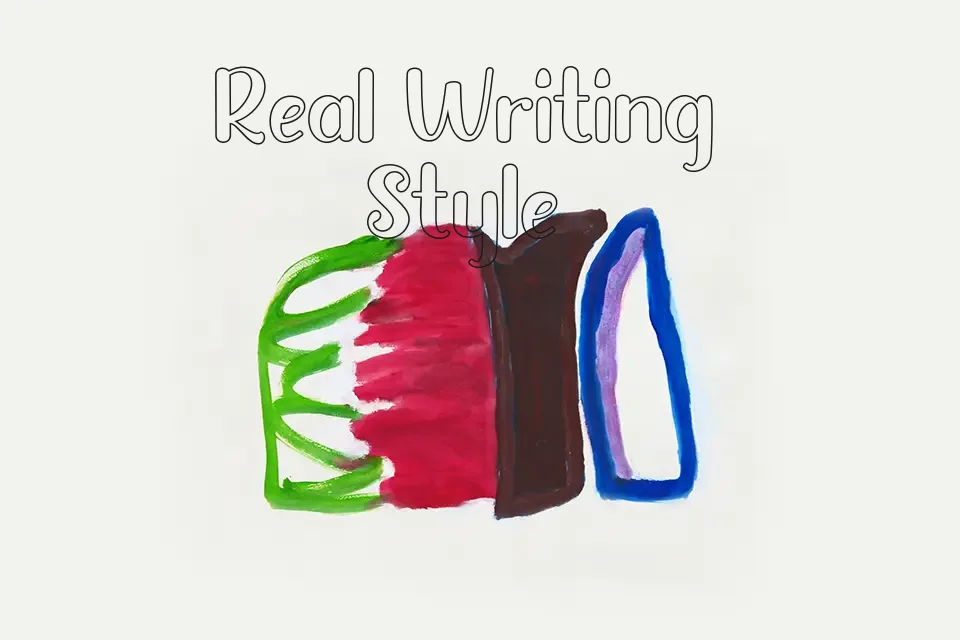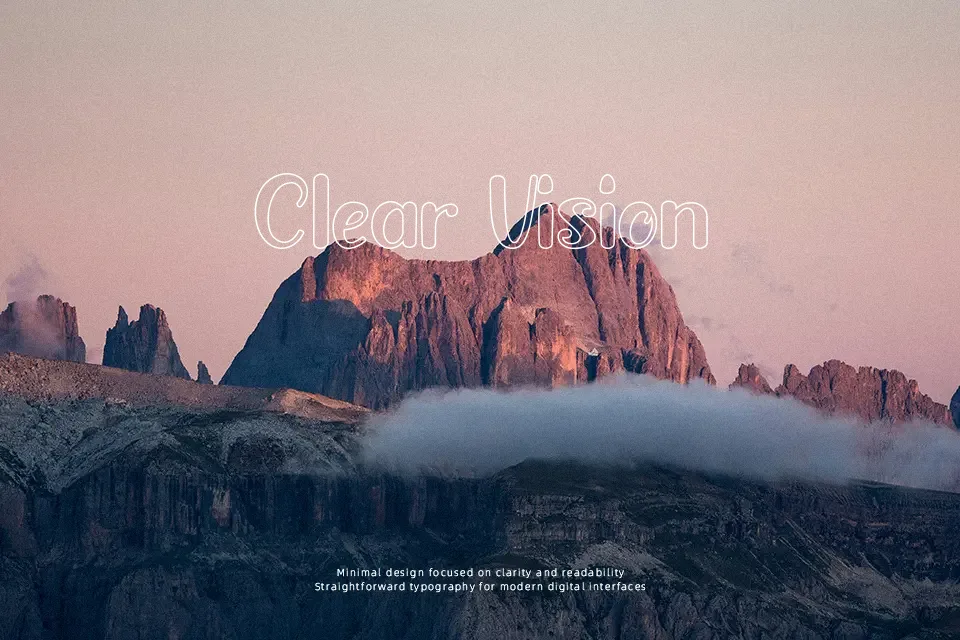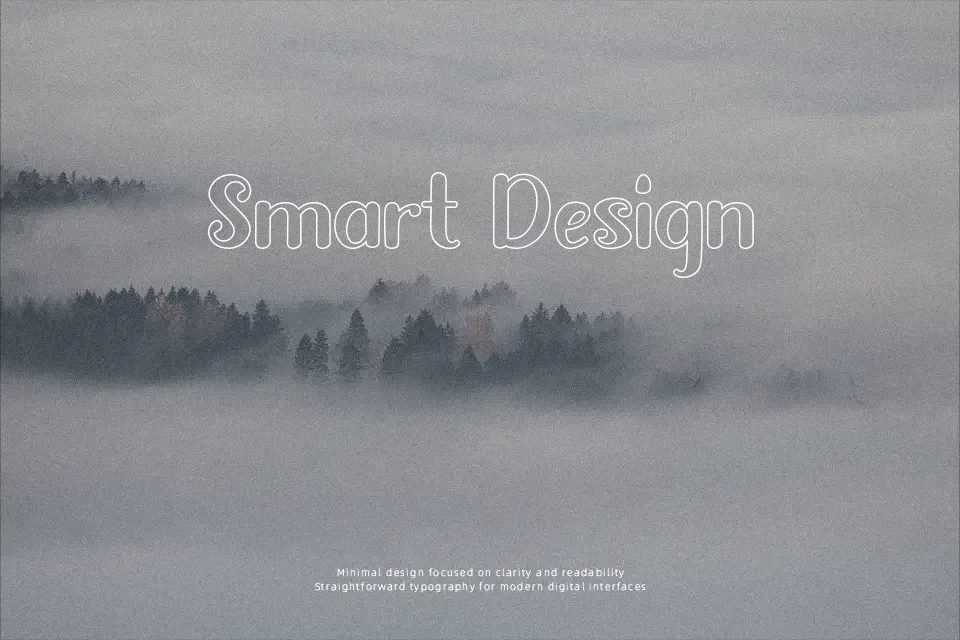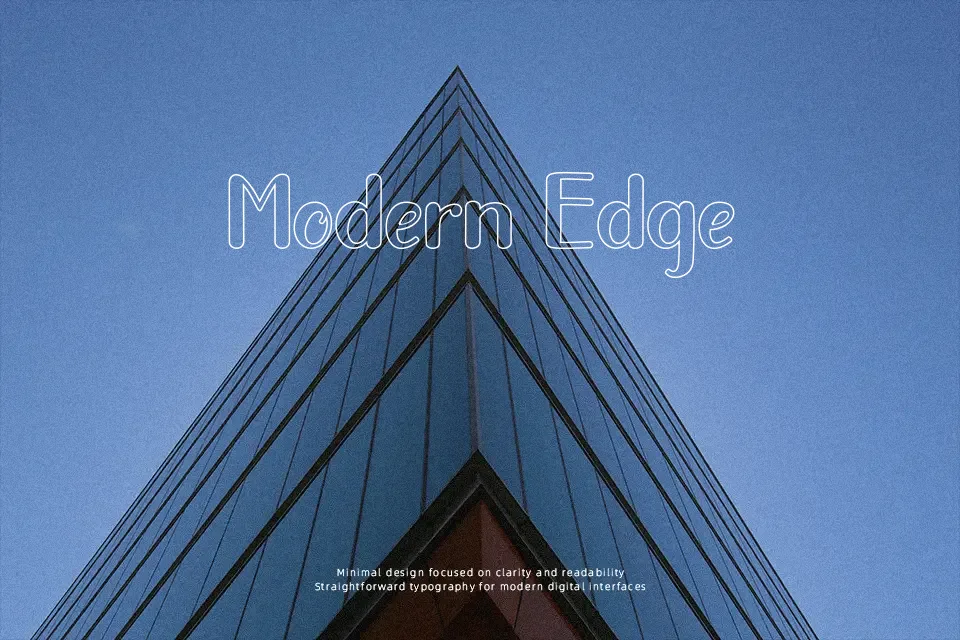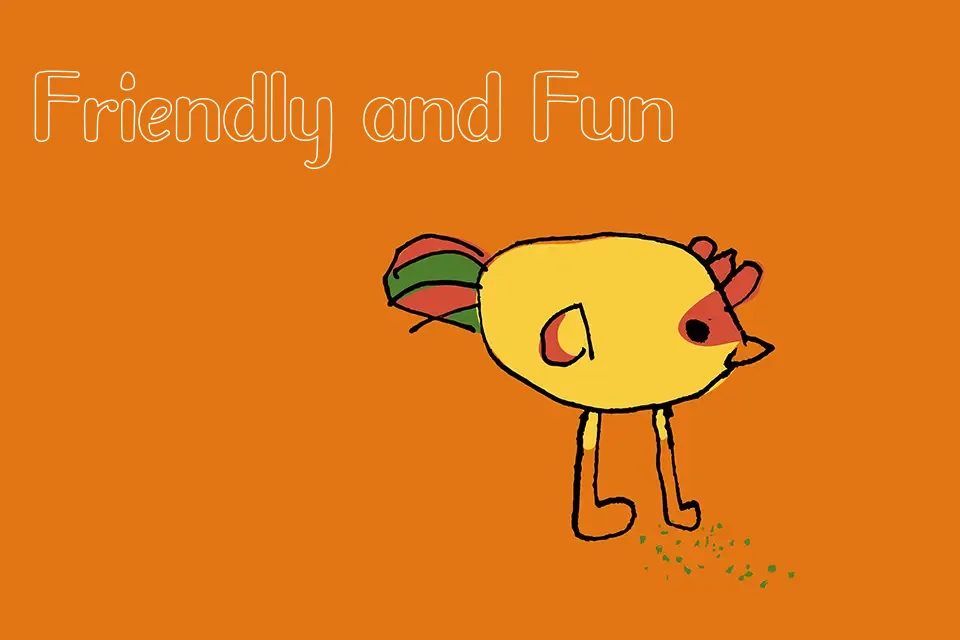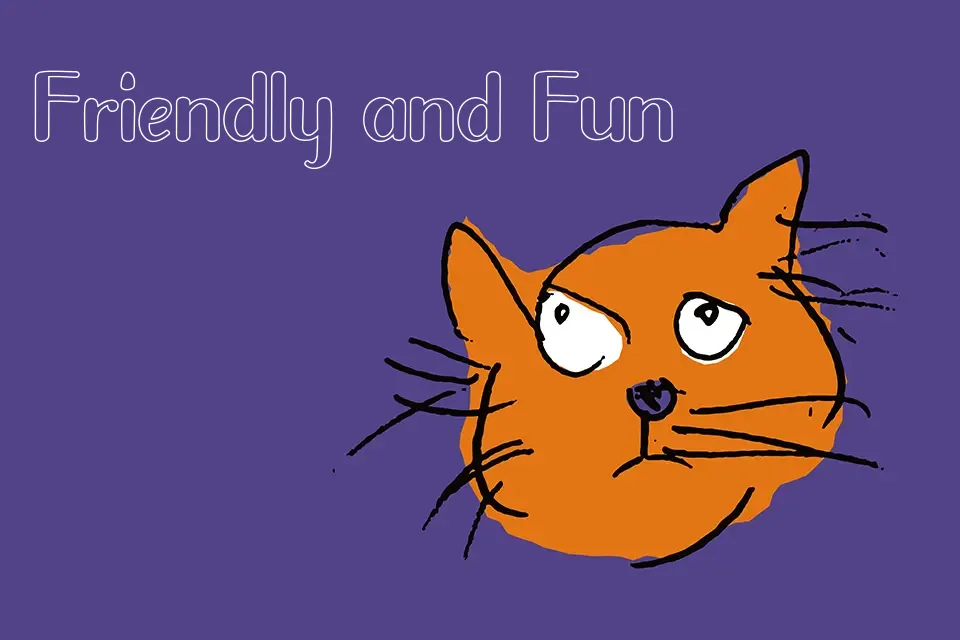
Baby Master Font
Starting with loose, rounded strokes and gentle curves, Baby Master reads like a neat, informal handwriting style with slightly varied letter shapes and easy horizontal flow. Its structure feels casual and decorative rather than strictly formal, so it works well on baby announcement cards, social media quote images, children’s clothing tags, and playful logo marks that need warmth. The font can look a bit light and uneven in very small sizes or dense paragraphs, which reduces readability. Use it when you want a friendly, human touch in short headings or standout words, but switch to a simpler sans serif for long text blocks or serious corporate layouts.
baby shower invitation titles
nursery wall art quotes
kids’ birthday party flyers
playful small-brand logos
formal corporate reports
tiny caption sizes
strictly minimalist UI text
Perfect for branding, kids, and logo, with a creative and display style.